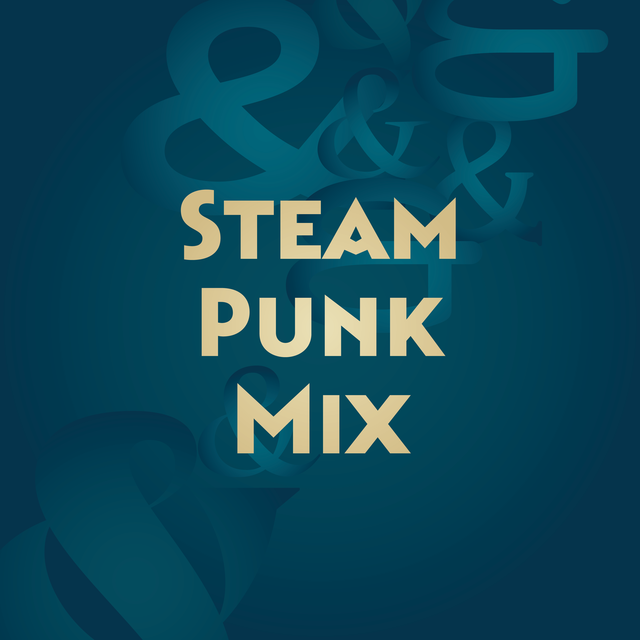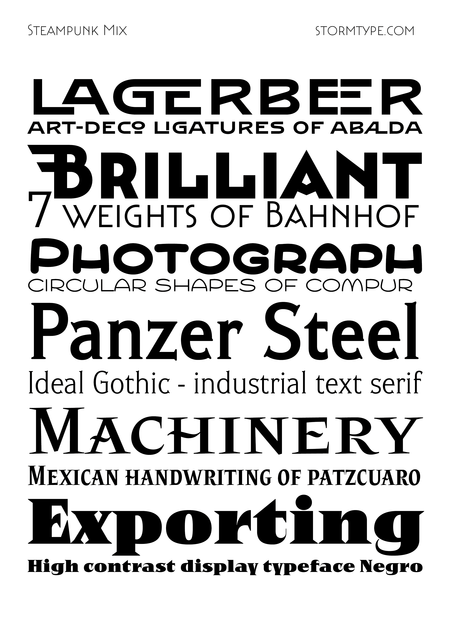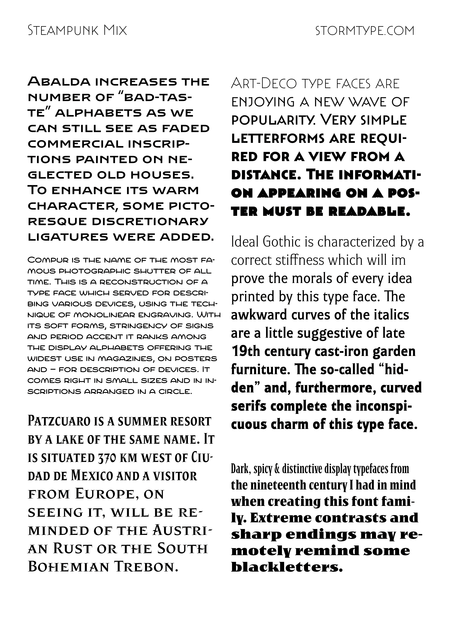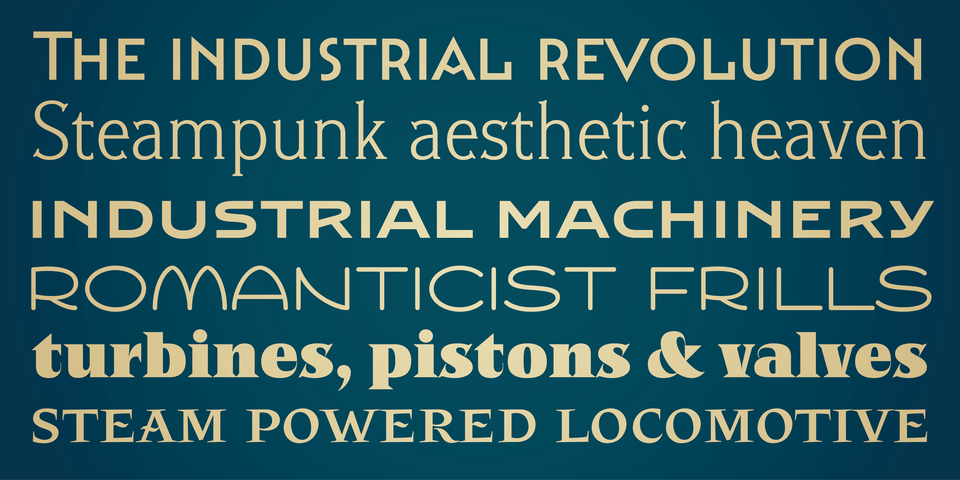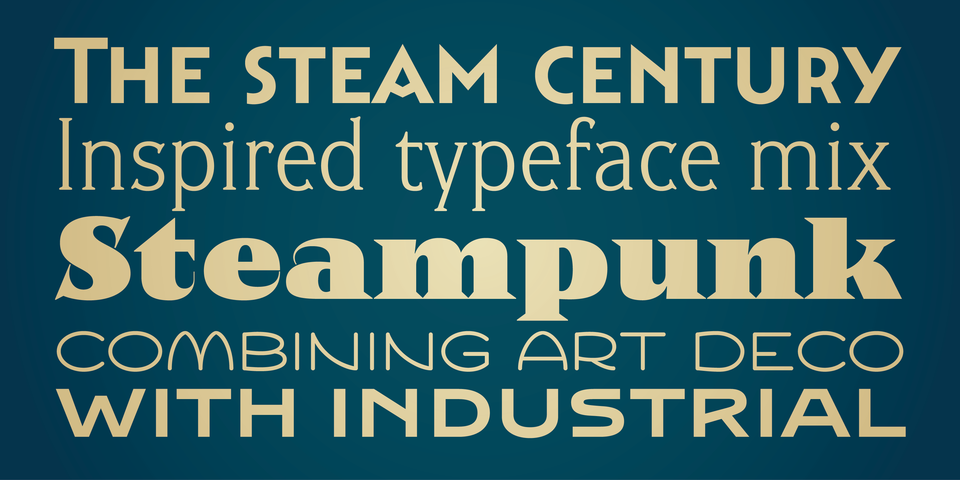
Inspired by the century of steampower mixing industrial influences with art deco style. Board games, book covers, packaging design, you name it. 6 typefaces, covering both text and display styles, to satisfy just about any need for a steampunk fantasy.